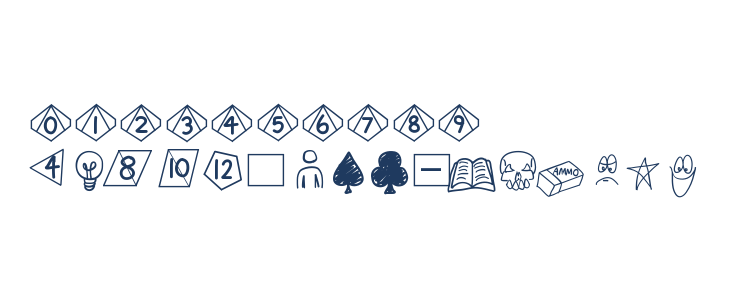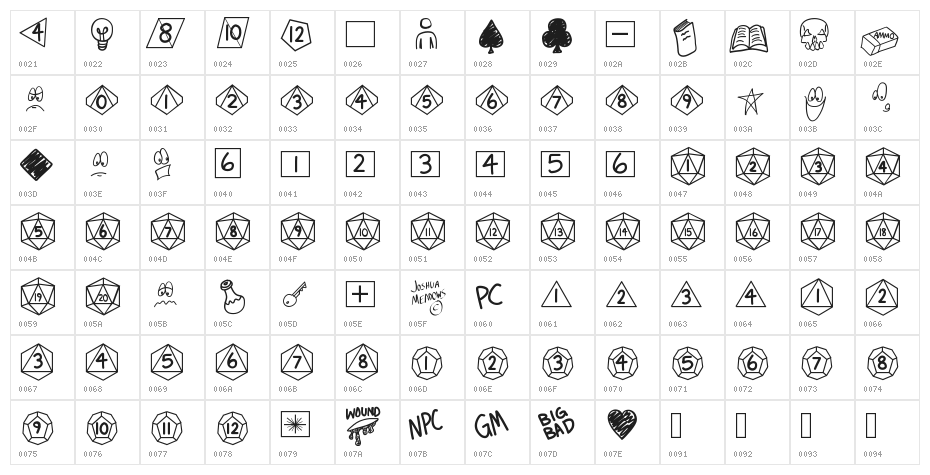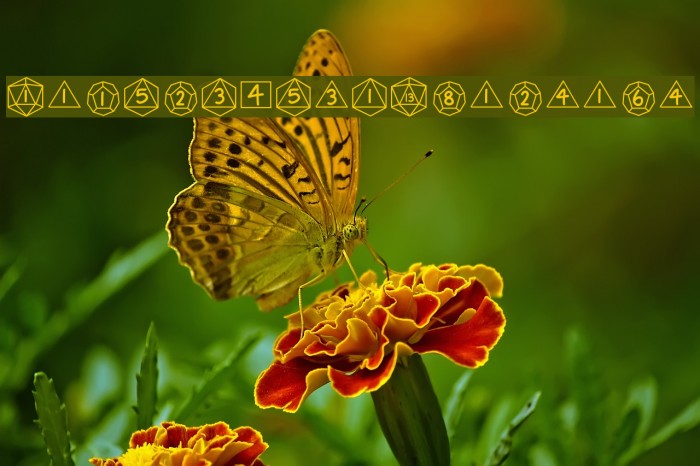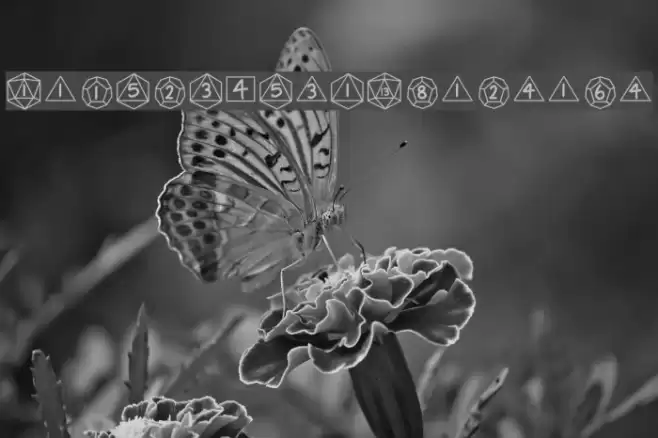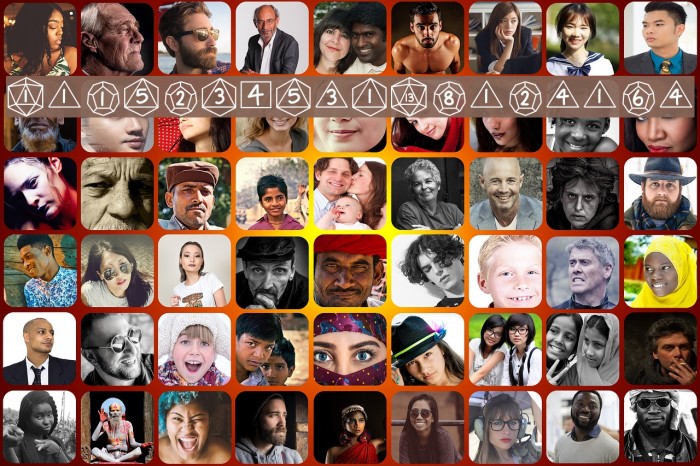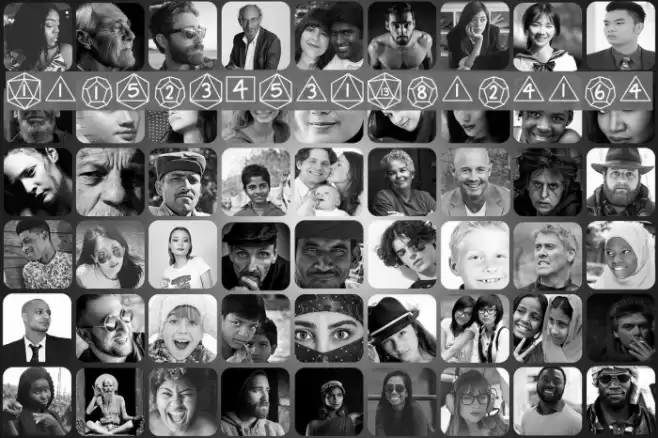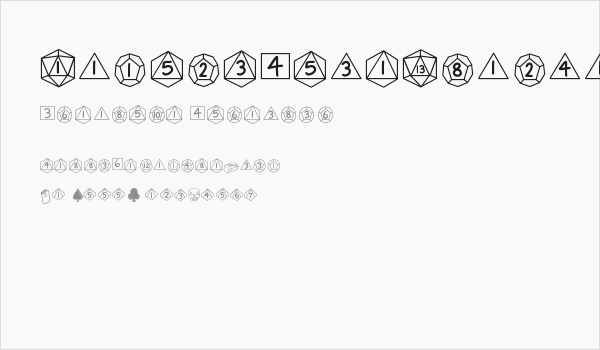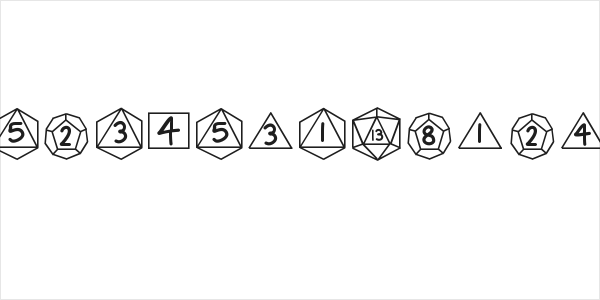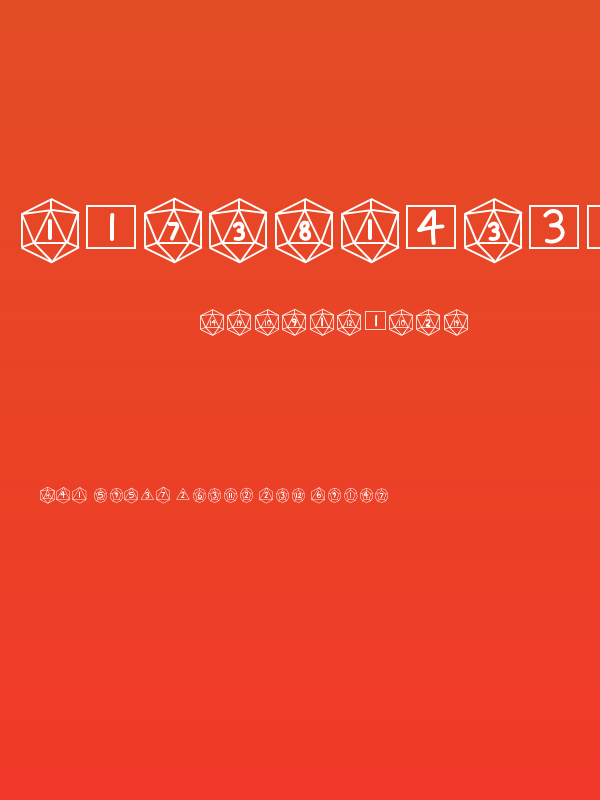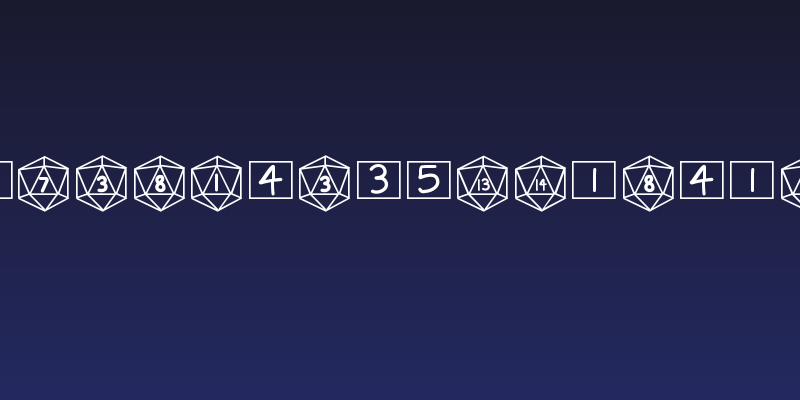
This font is a unique and playful design inspired by gaming dice, featuring numbers and symbols encased in various polyhedral shapes. The characters are presented in a bold, geometric style, reminiscent of tabletop role-playing game dice. The font includes numbers from 1 to 20, each within a different dice shape, such as d4, d6, d8, d10, d12, and d20. Additionally, it incorporates thematic symbols like a light bulb, playing card suits, and other gaming-related icons. The overall design is clean and structured, making it ideal for projects that require a gaming or fantasy aesthetic.
Overall StylePlayful, Geometric
Use CaseLogos, Posters, Game Design
Proposed ProjectsIdeal for tabletop RPG materials, gaming-themed posters, board game designs, and fantasy book covers.